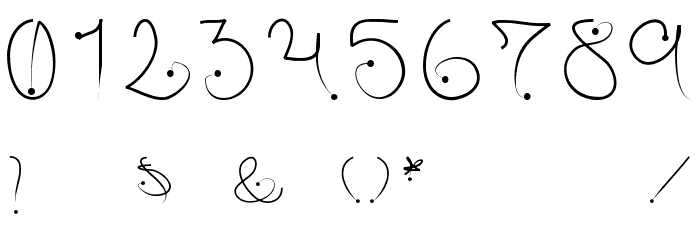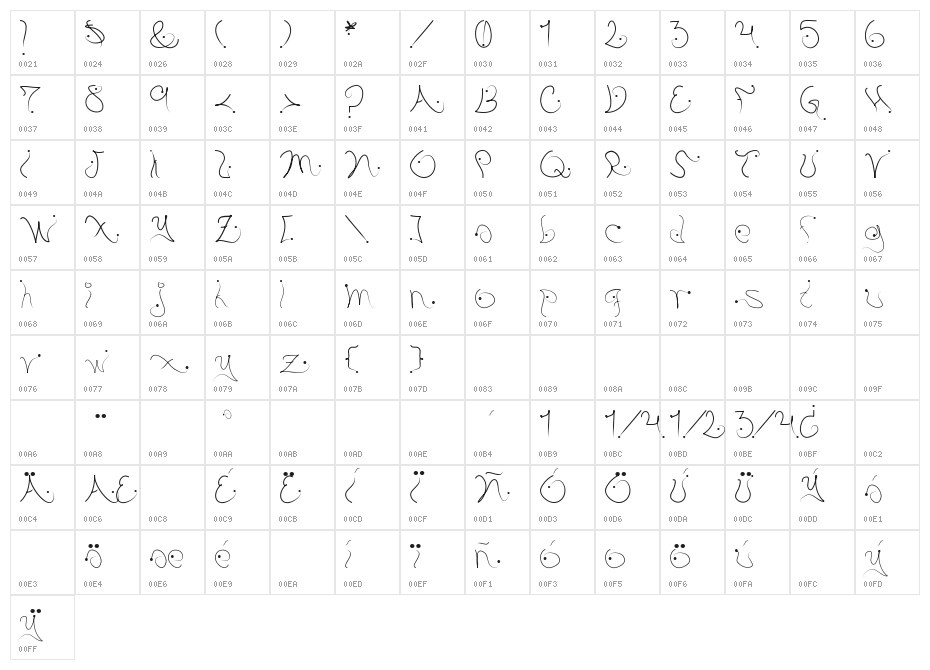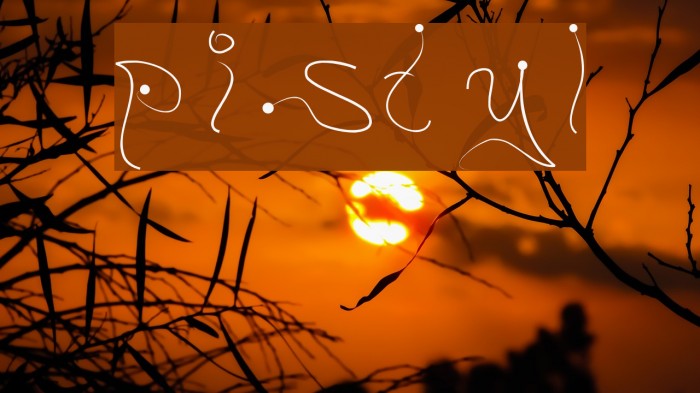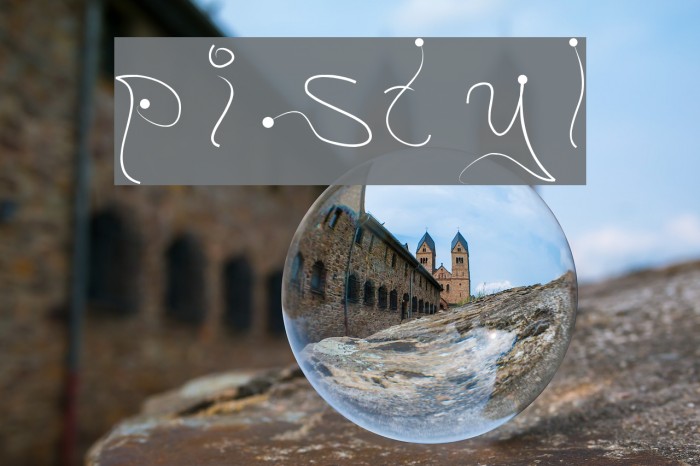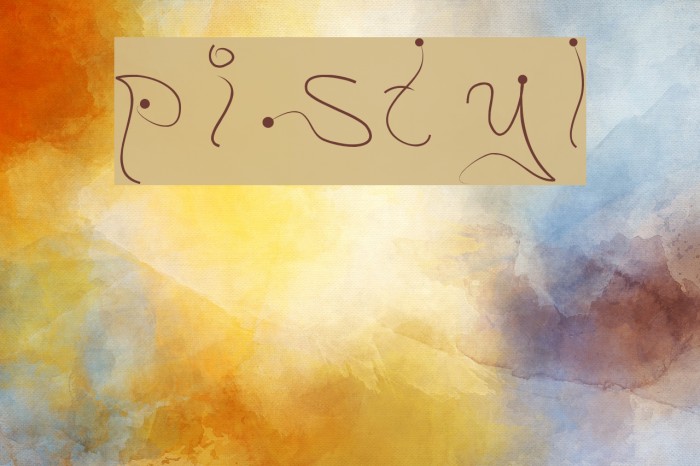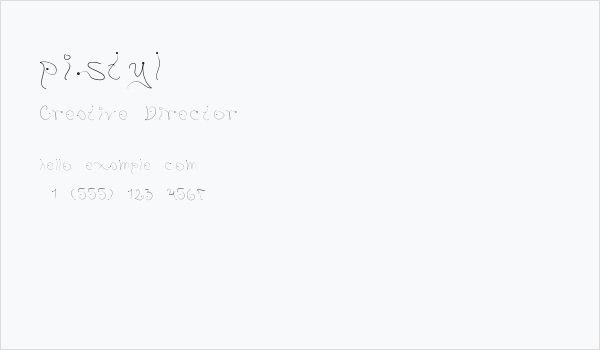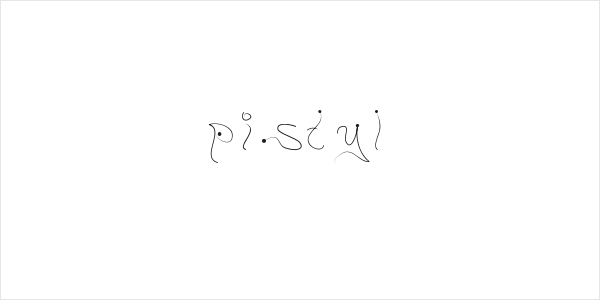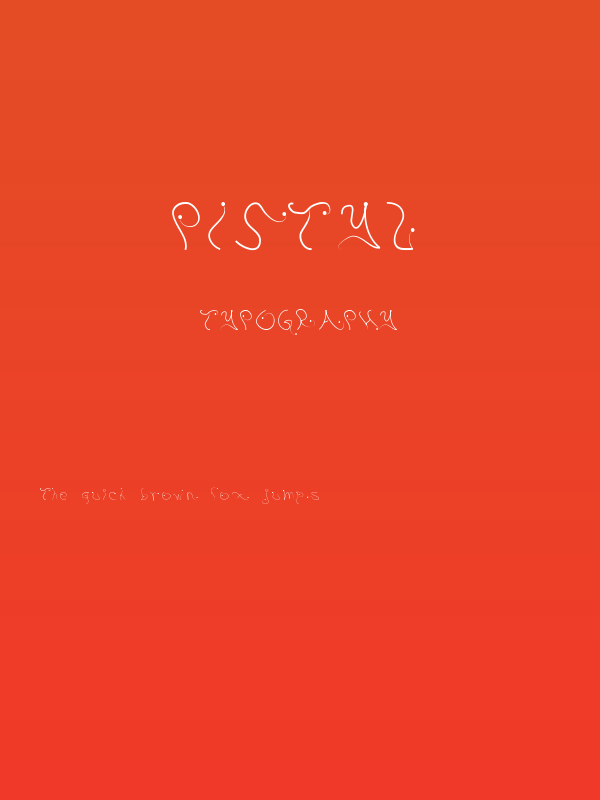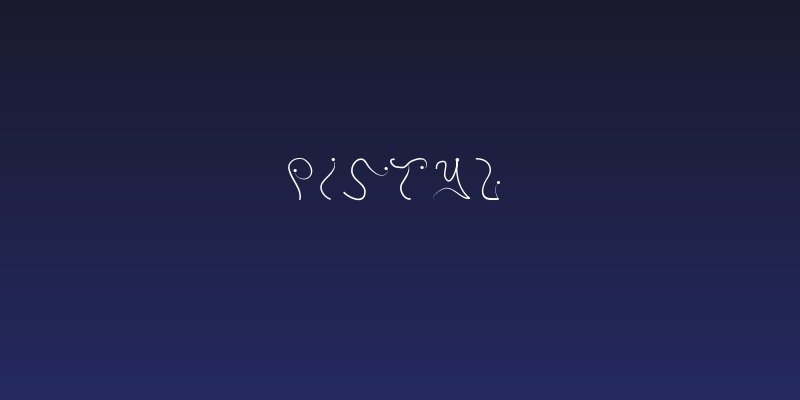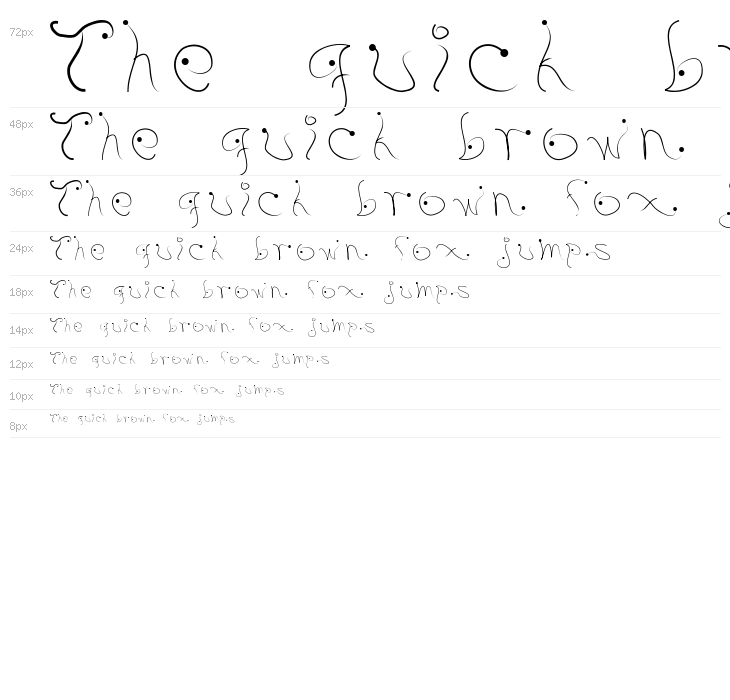
pistyl Font
pistyl Description
This font features a whimsical and artistic design, characterized by its flowing curves and playful dots that accentuate each letter. The strokes are delicate and thin, giving it an airy and elegant appearance. The uppercase and lowercase letters maintain a consistent style, with unique flourishes that add a touch of creativity. The numerals and special characters follow the same artistic theme, making the font cohesive and visually appealing. Its distinctive style makes it stand out, perfect for projects that require a touch of individuality and flair.
| Use Case | Logos, Artistic projects, Invitations |
| Proposed Projects | Ideal for creative projects such as invitations, greeting cards, artistic posters, and branding materials that seek a unique and playful touch. |